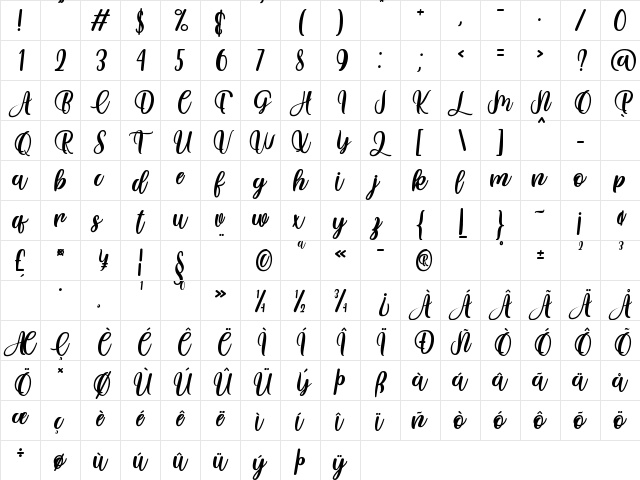
Tails Mermaid Regular
Design Context for Tails Mermaid Typeface
Tails Mermaid is a composed and adaptable typeface that performs quietly and consistently across a wide range of design contexts.